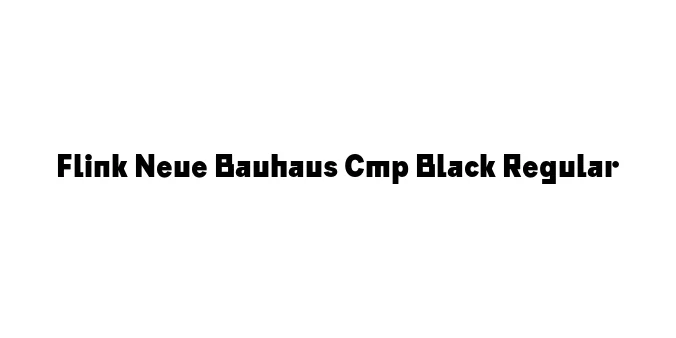
Flink Neue Bauhaus Cmp Black Regular
Designed by Nils Thomsen, Jakob Runge
| Category | Sans-Serif / Geometric |
| Designer | Nils Thomsen, Jakob Runge |
Flink Neue Bauhaus Cmp Black Regular is a powerful geometric sans-serif that draws heavy inspiration from the efficiency and functionalism of the Bauhaus movement. Developed by the TypeMates foundry, this specific variant focuses on a compressed, ultra-heavy weight that maximizes visual impact within a restricted horizontal space. It maintains the classic circular and square-based geometry characteristic of 20th-century German design while introducing subtle contemporary refinements for better digital legibility.
This typeface is part of the larger Flink Neue family, designed to be versatile across both print and screen. The Cmp Black weight is particularly effective for high-contrast environments where the letterforms act as much as graphic elements as they do as text. Its robust architecture and tight letter-spacing make it a standout choice for designers looking to convey strength, precision, and modernism in a single typographic voice.
Flink Neue Bauhaus Cmp Black Regular Best Uses
Perfect for bold, space-saving headlines in magazine layouts and book covers.
Excellent for creating authoritative and modern logos for design and tech firms.
Ideal for high-impact posters where typography needs to be the central graphic element.
Effective for architectural signage and wayfinding where visibility from a distance is required.